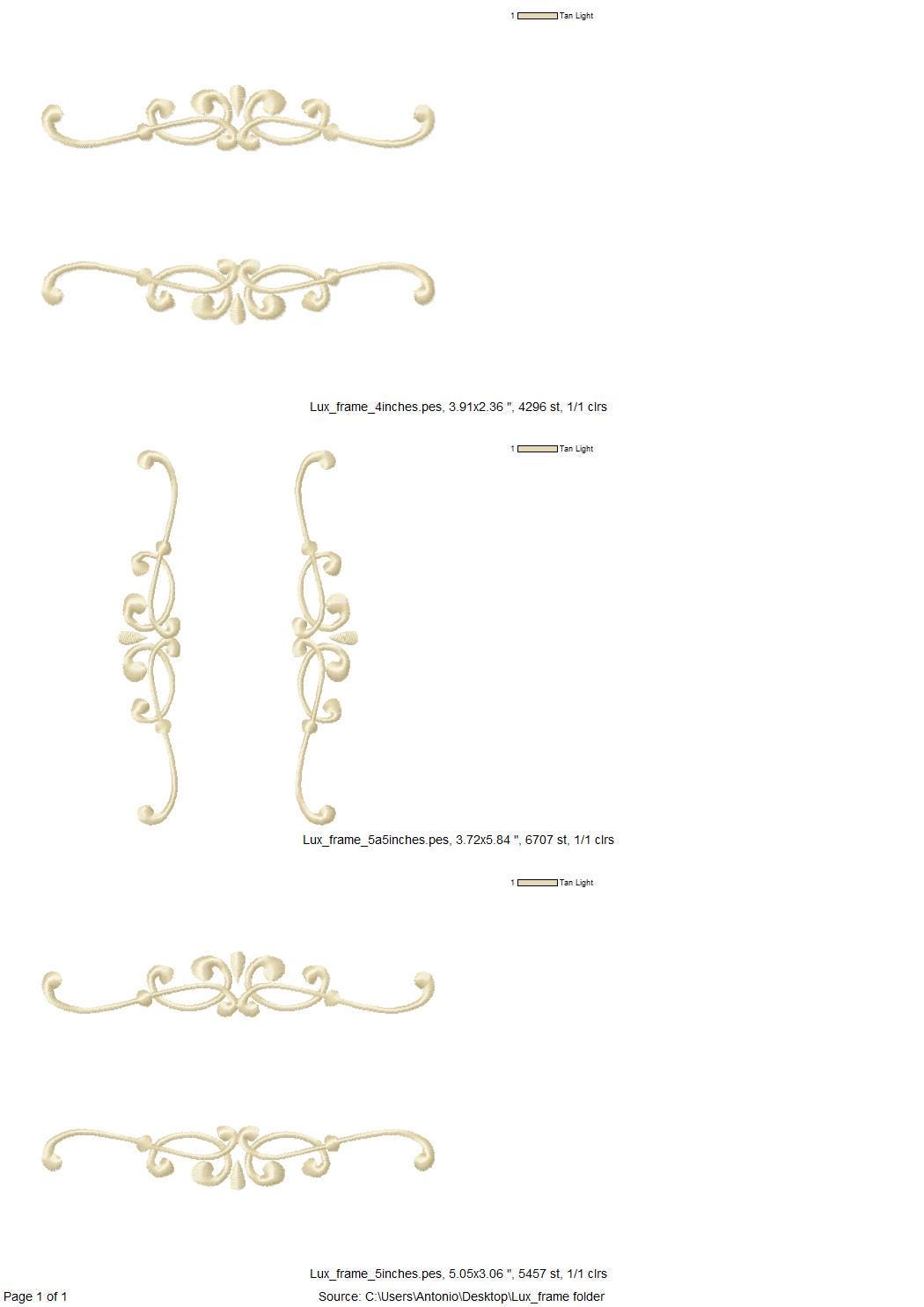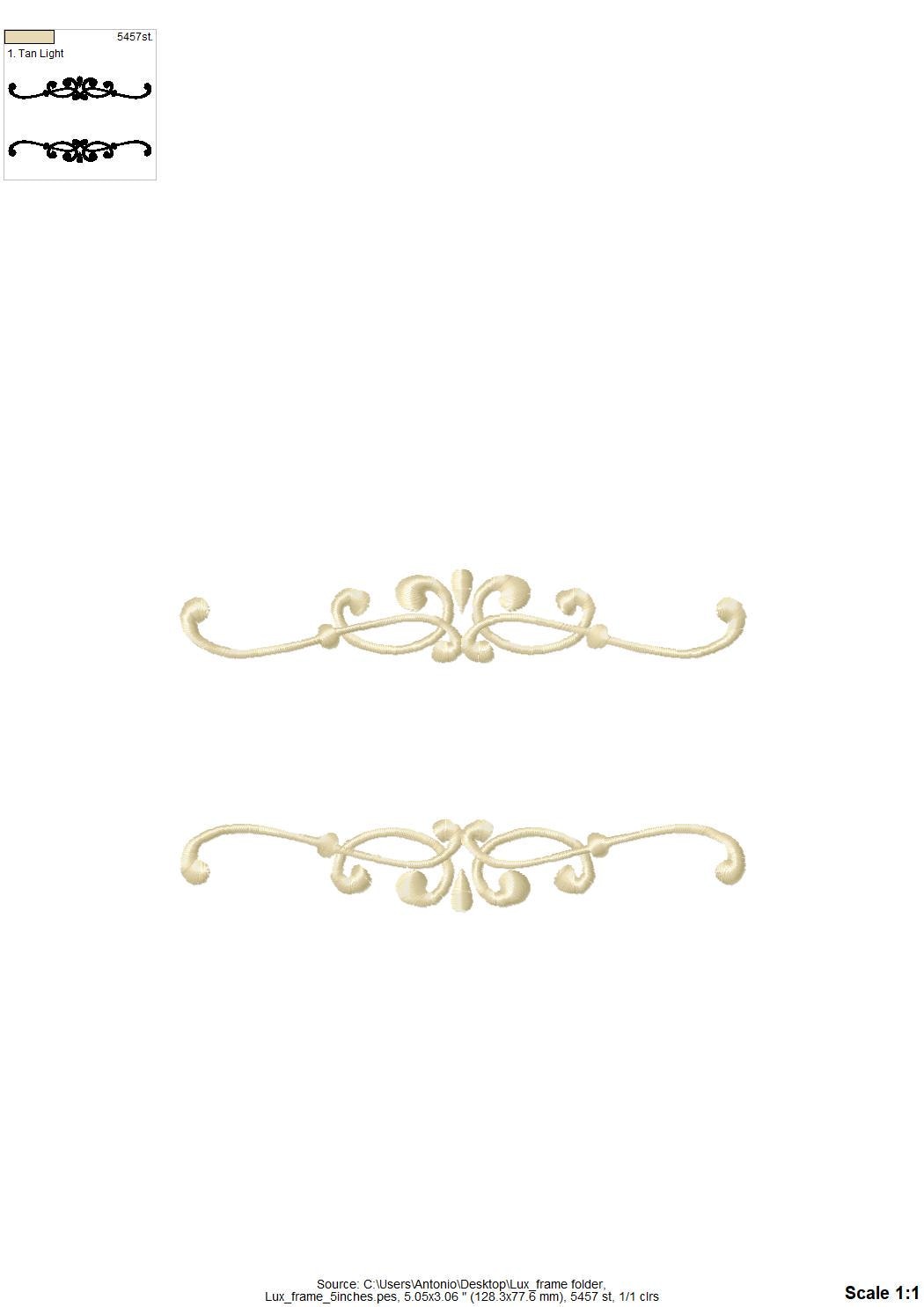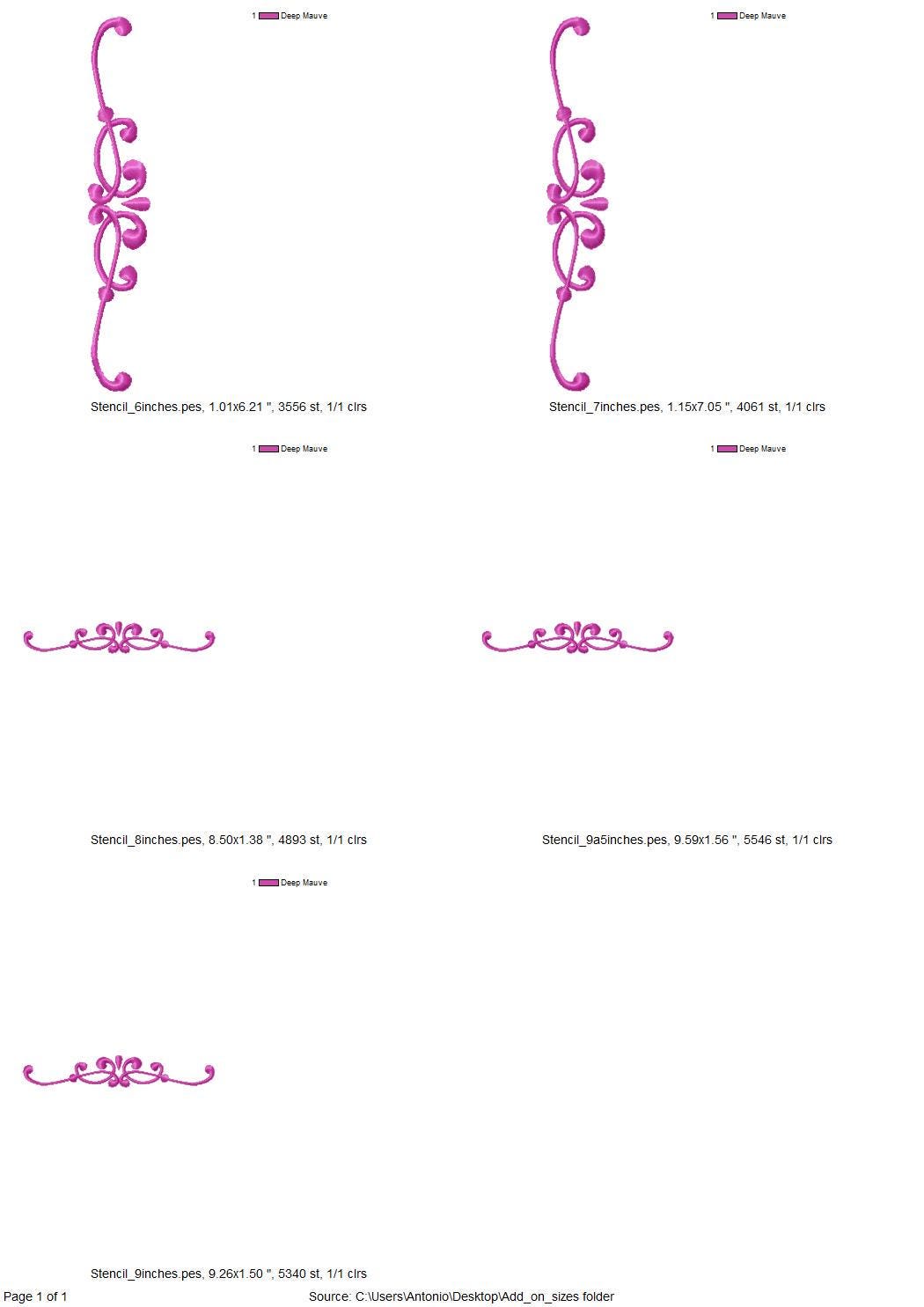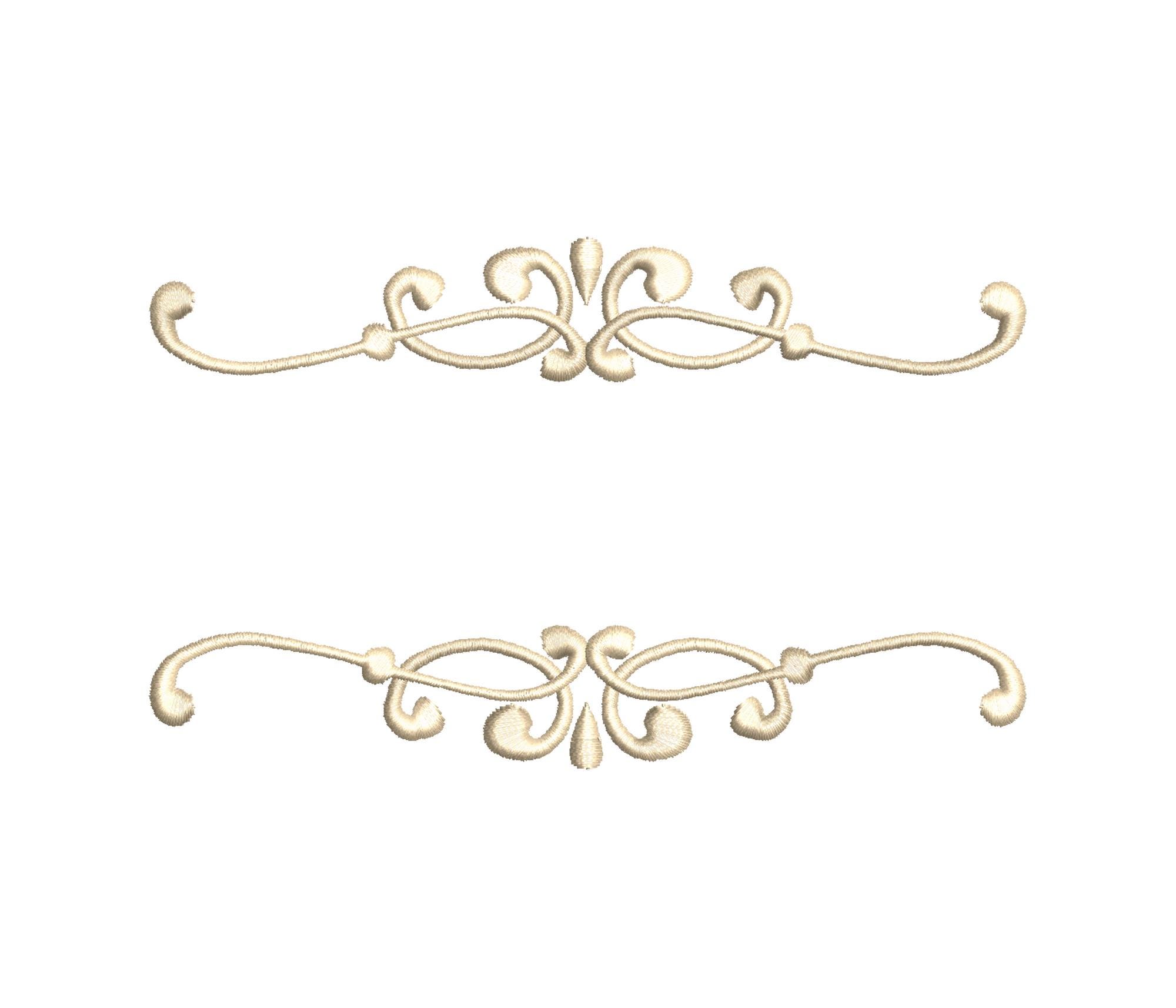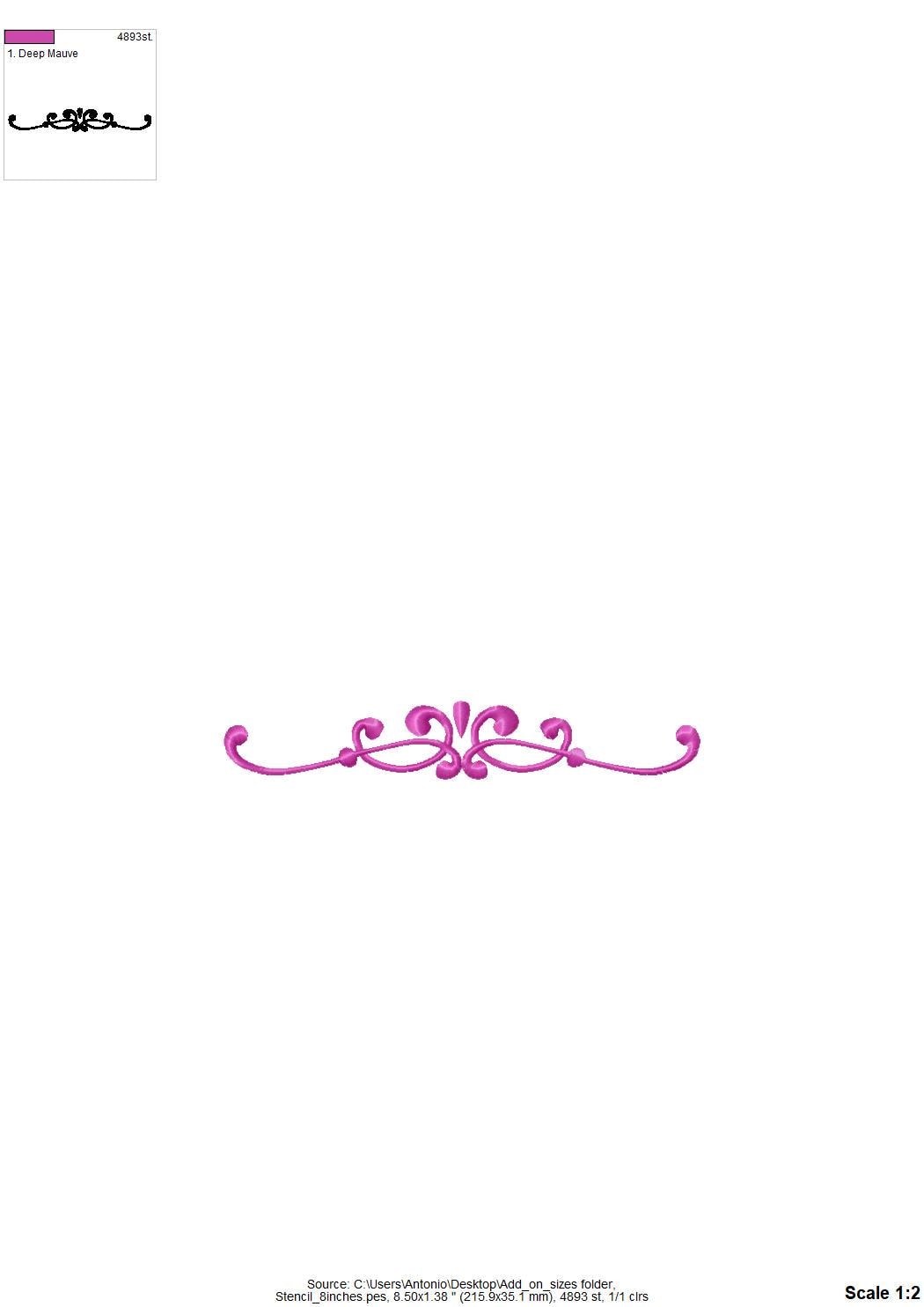
Monogram Border Frame curl swirl font name Border machine embroidery designs two in a row and single design many sizes 4 up to 9 inches
Quite beautiful, and a nice Victorian-era embellishment!
Very pretty scroll swags for monogram fonts